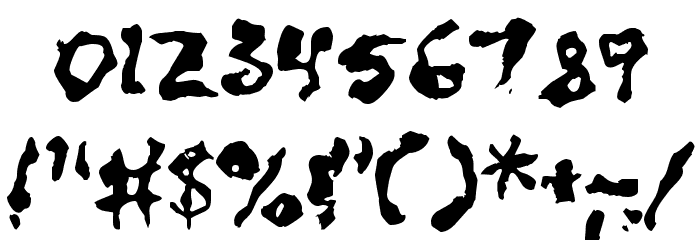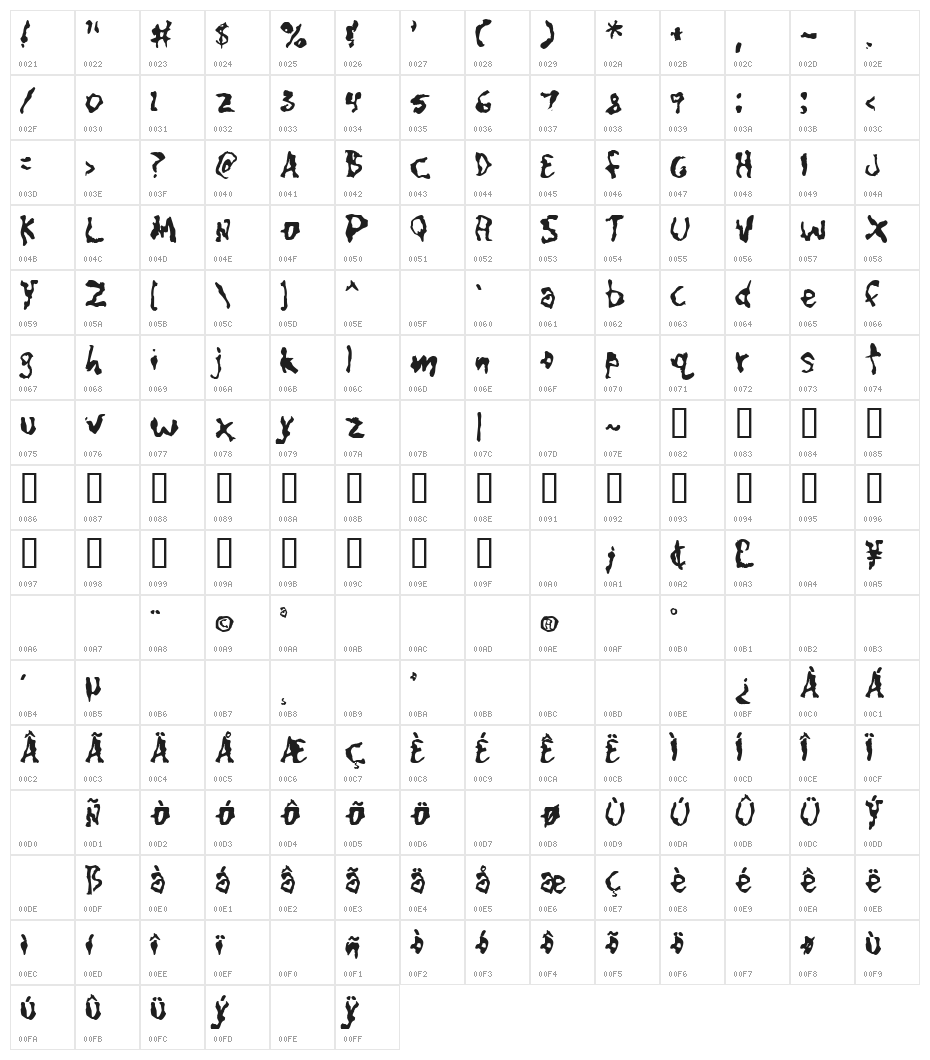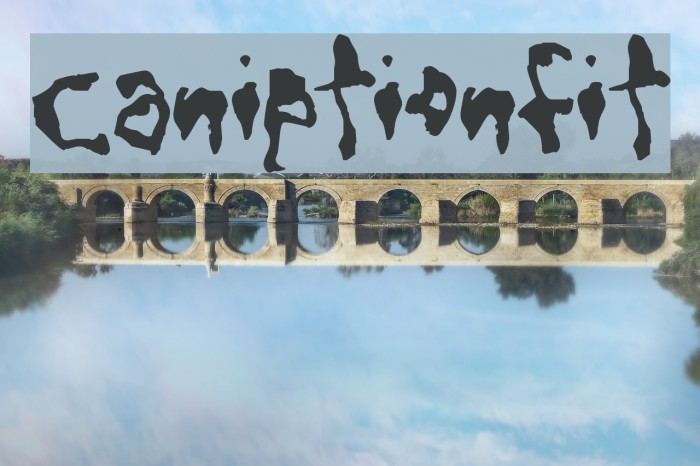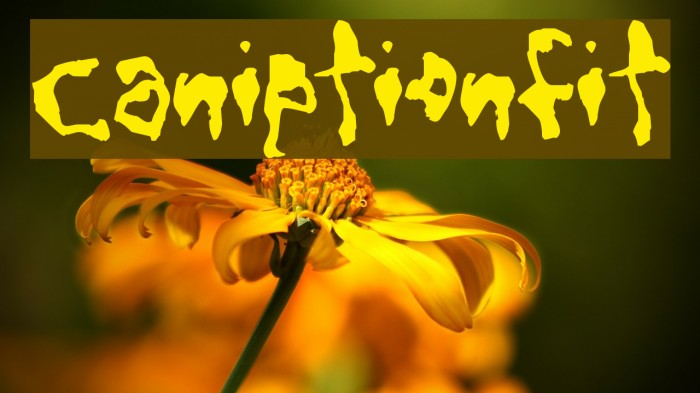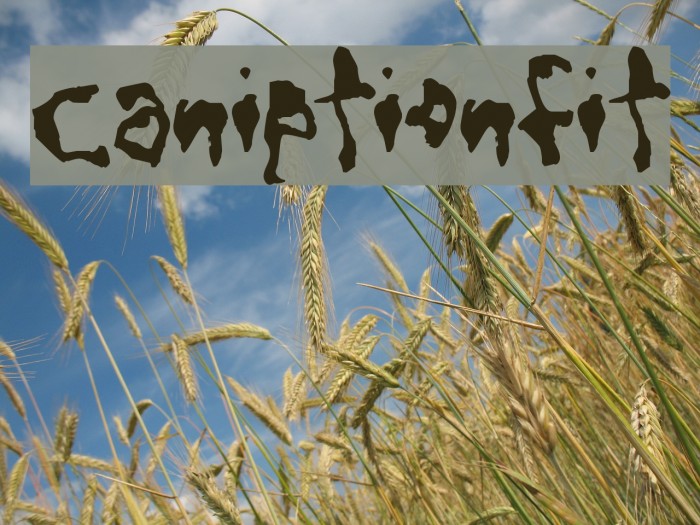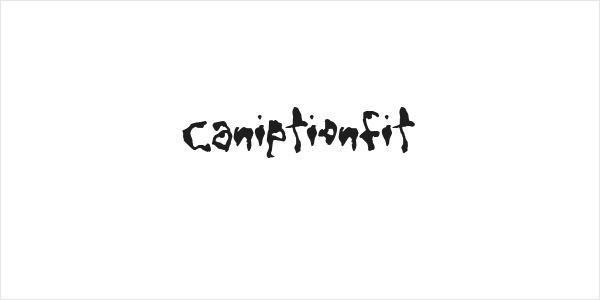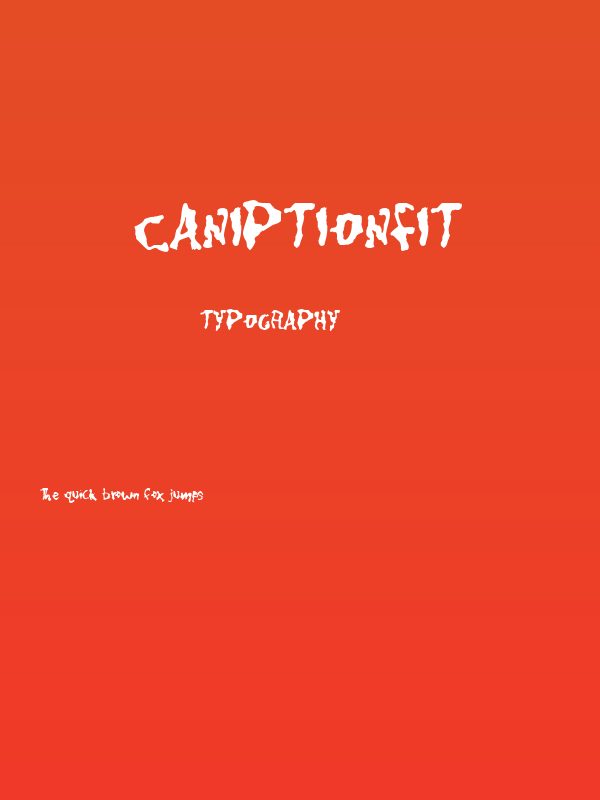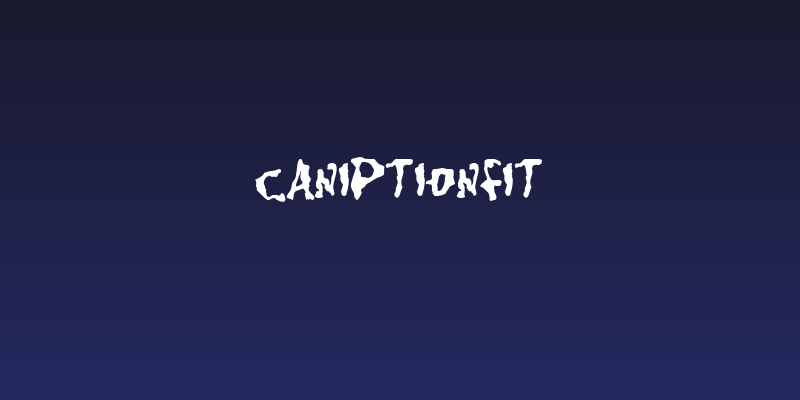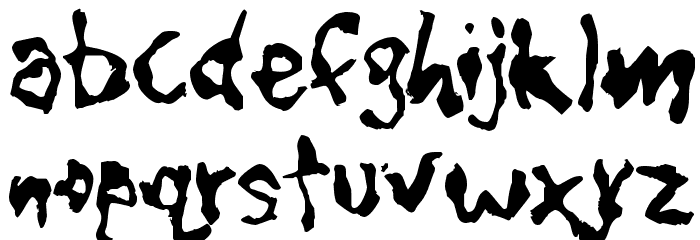
CaniptionFit Font
CaniptionFit Description
This font features a highly irregular and artistic style, reminiscent of hand-painted or brush-stroke lettering. The characters are bold and have a rough, textured appearance, giving them a raw and expressive quality. The uppercase and lowercase letters maintain a consistent style, with exaggerated curves and uneven lines that create a sense of movement and energy. The numbers and special characters follow the same aesthetic, ensuring a cohesive look across all glyphs. This font is ideal for projects that require a dramatic and eye-catching display, such as posters, album covers, or artistic branding.
| Proposed Projects | Perfect for posters, album covers, artistic branding, and any project needing a dramatic display. |